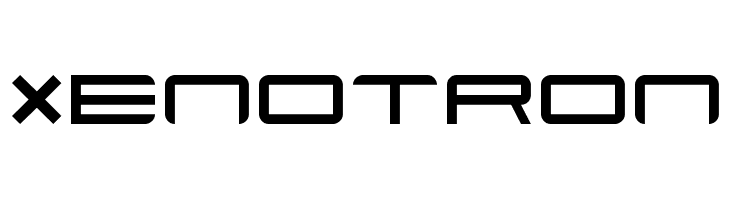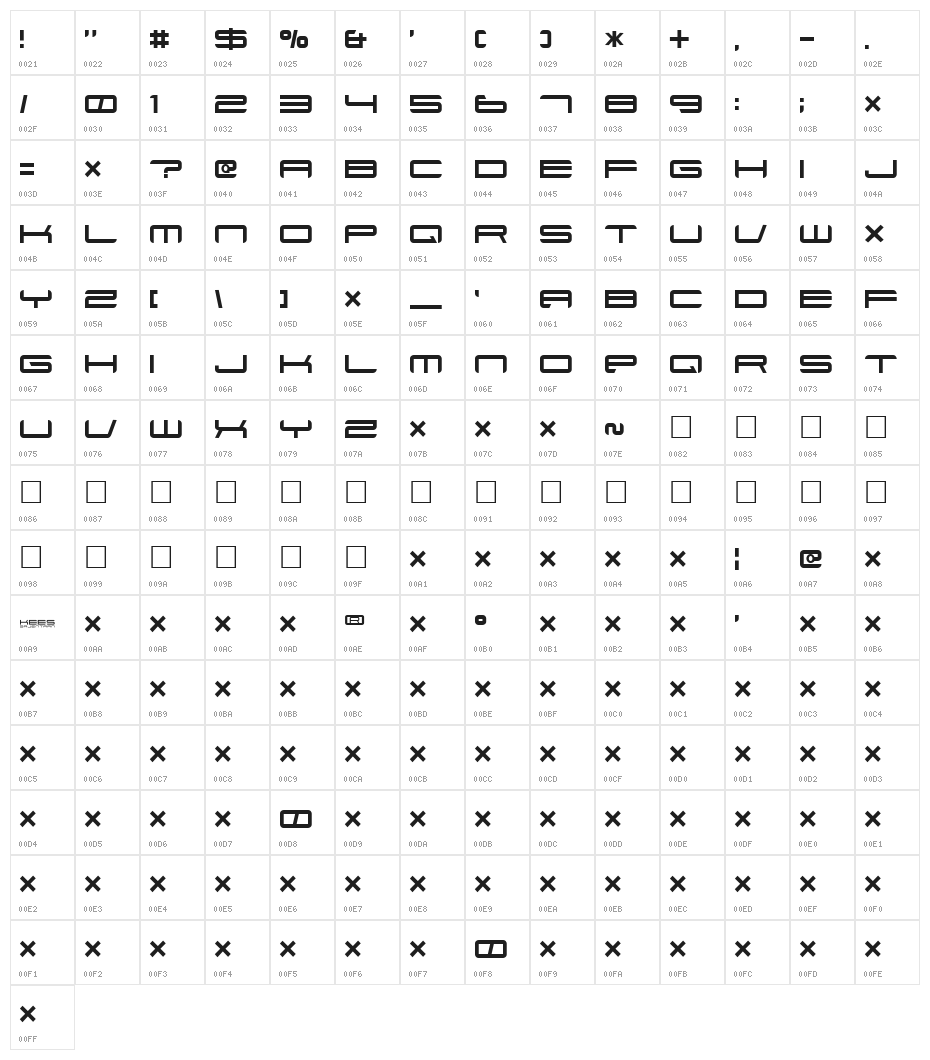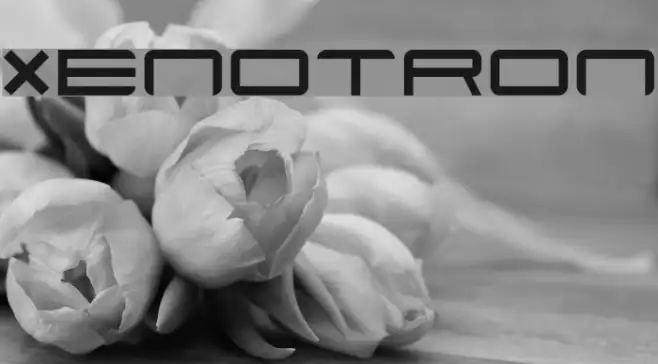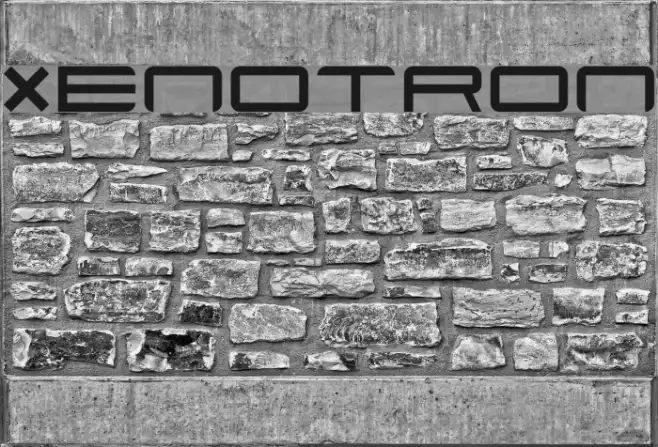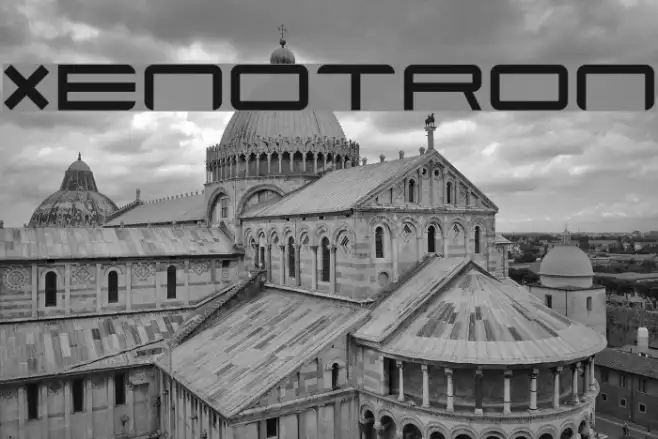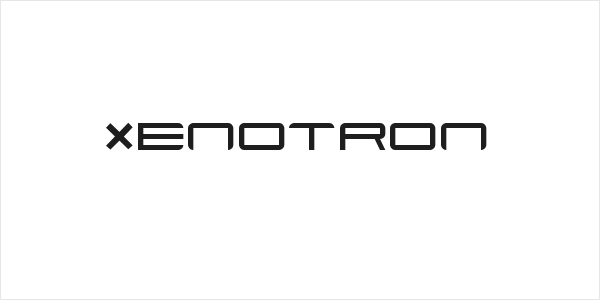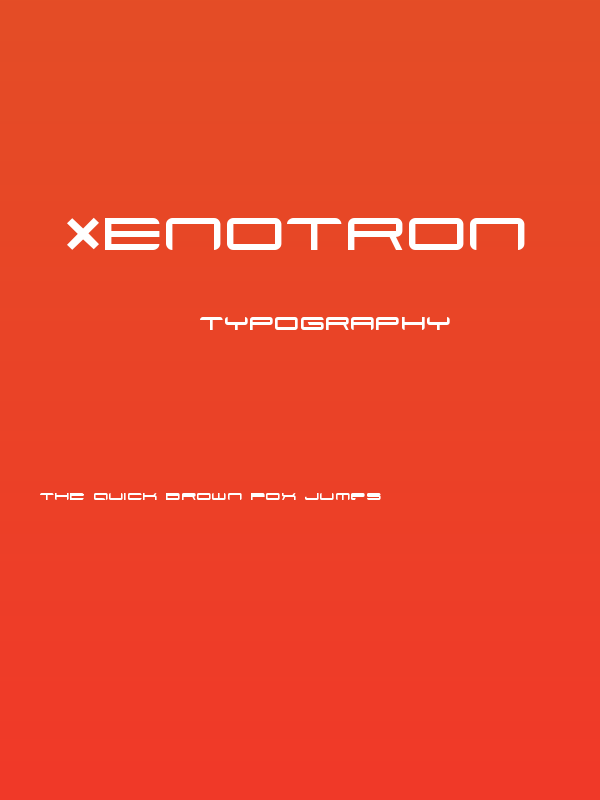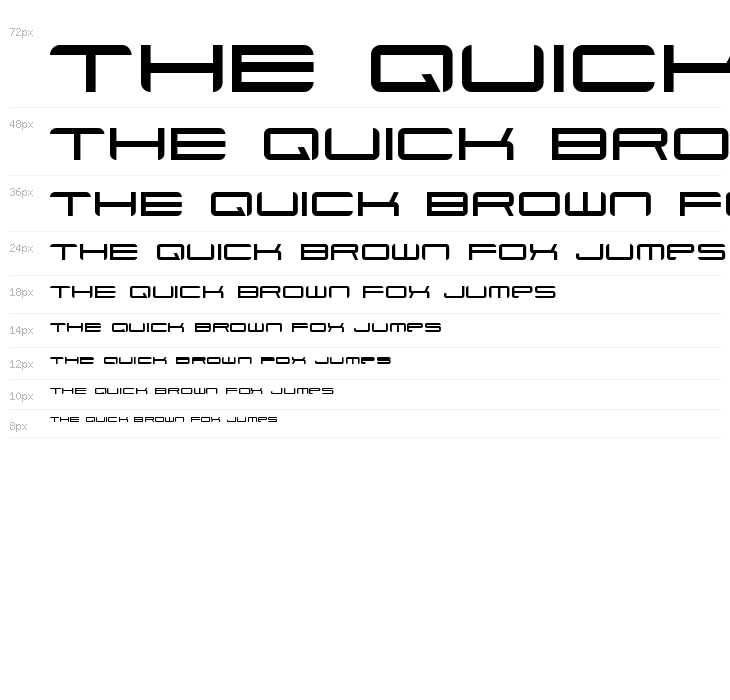
Xenotron Font
Xenotron Description
This font features a futuristic and geometric design, characterized by its clean lines and angular shapes. The uppercase letters are bold and structured, with a uniform height that creates a cohesive look. The lowercase letters maintain the same geometric style, offering a seamless transition between cases. Numbers are distinct and easily readable, following the same angular theme. Special characters are designed to complement the overall aesthetic, ensuring consistency across all elements. The font's modern and tech-inspired appearance makes it suitable for projects that require a contemporary and innovative feel.
| Proposed Projects | Ideal for technology branding, sci-fi themed designs, video game interfaces, and modern advertising campaigns. |